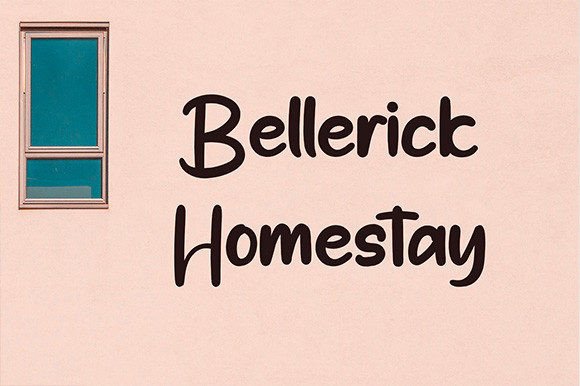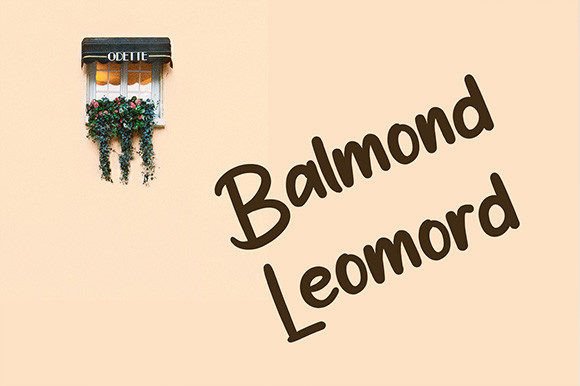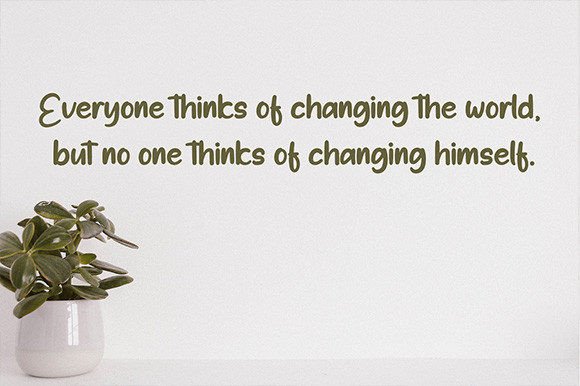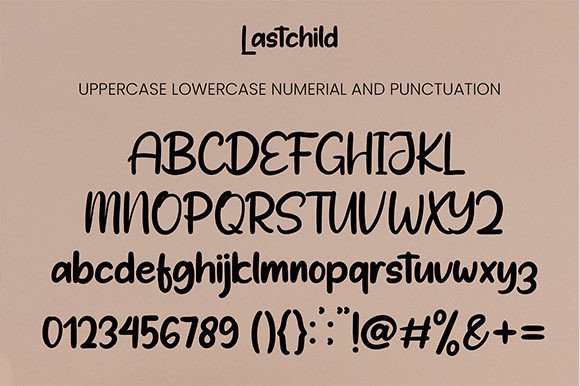
Introduction to Lastchild Font
Have you ever been working on a creative project, and you just can’t seem to find the perfect font to bring it to life? The frustration is real, but what if I told you there’s a solution that’s both stylish and versatile? As designers, we’re always on the lookout for that special something that makes our work stand out, and I’m excited to introduce you to the Lastchild Font, a modern handwritten font that’s about to revolutionize your design projects.
With its unique and elegant style, the Lastchild Font is perfect for quotes, logos, blog headers, posters, ribbons, fashion, clothing, letters, invitations, and stationery. Its high-quality design and transparent background make it an ideal resource for any creative project, and the best part? It’s available for free download, making it an accessible and valuable addition to any designer’s toolkit.
Key Features of Lastchild Font
- Unique, elegant script font featuring a transparent background, perfect for adding a touch of sophistication to any design.
- Comes in a single weight, making it easy to use in a variety of design contexts.
- Designed to be highly legible, even at small font sizes, making it perfect for use in body text or headlines.
Honest Review: Lastchild Font
I recently came across the Lastchild Font and was excited to dive in and see what it has to offer. As a designer, I’m always on the lookout for high-quality design resources to enhance my creative projects.
- ✨ High-quality design: The Lastchild Font has a crisp, clean aesthetic that makes it perfect for modern designs.
- ✨ Transparent background: The font’s transparent background allows for seamless integration with any background image or color.
- ⚠️ Limited font styles: While the Lastchild Font has a unique aesthetic, it’s limited to a single font style, which may not be suitable for every design project.
- ⚠️ Not ideal for complex text: Due to its simplicity, the font may not be the best choice for complex text or large blocks of text.
Overall, I’m impressed with the Lastchild Font, but I think it’s essential to consider its limitations when deciding whether to use it for your next creative project. If you’re looking for a simple, modern font for a design project, the Lastchild Font is definitely worth checking out.
Lastchild Font
Getting the Most Out of Lastchild Font
Common Use Cases for Lastchild Font
Lastchild Font is ideal for designing logos, posters, and social media graphics.
Its unique style makes it perfect for creative projects that require a touch of elegance and sophistication.
Alternatives to Lastchild Font
Great Vibes Font is a high-quality, elegant script font suitable for creative projects that require a touch of sophistication. It’s perfect for wedding invitations, luxury branding, and other high-end design work. When to use: Formal events, luxury brands, and elegant designs. How it compares to Lastchild Font: Great Vibes Font has a more refined and polished look, while Lastchild Font is more playful and whimsical.